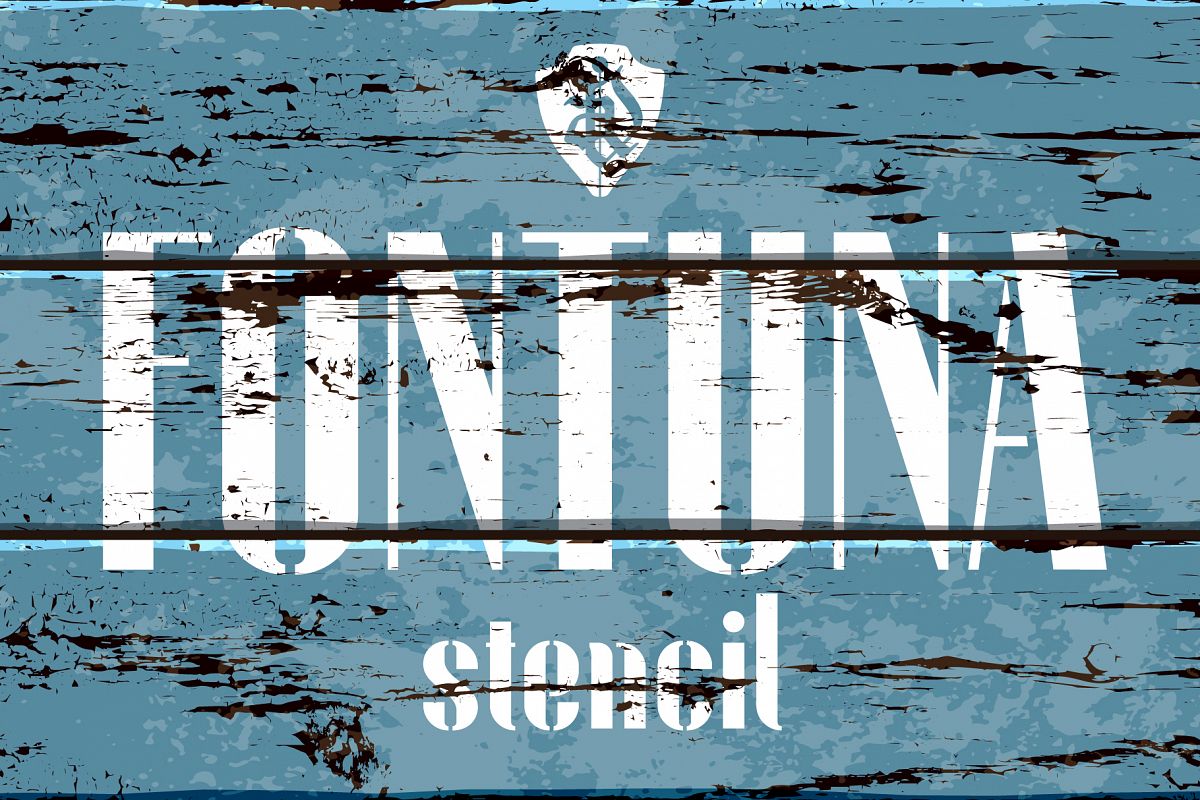
Fontuna stencil
FONTUNA Stencil is an elegant condensed fashionable grotesque. Sans-serif font inspired by the fashion glossy magazines typography.
It perfectly represents modern and vintage esthetics. The font includes
uppercase and smallcase letters, alternate characters, ligatures and multilingual support.
The font is perfect for wedding elegant invitation cards, beauty and fashion package design, glossy posters.
It have supporting for many european languages and perfect cyrillic!